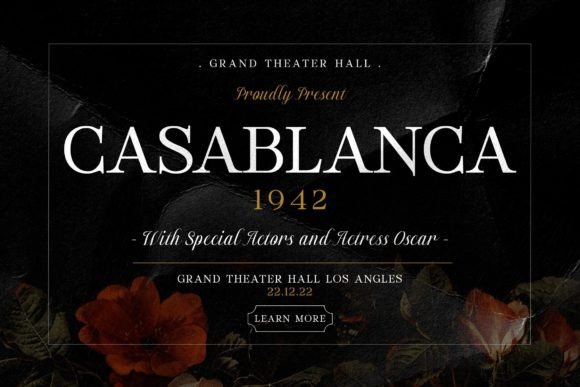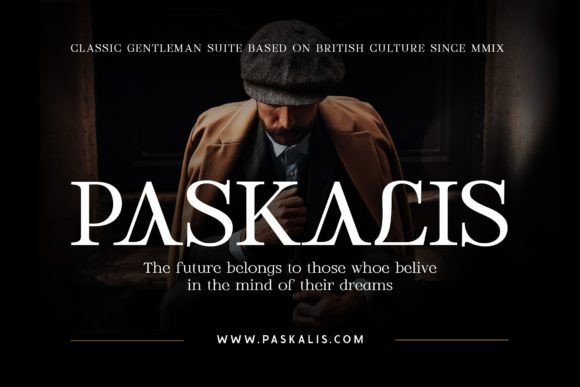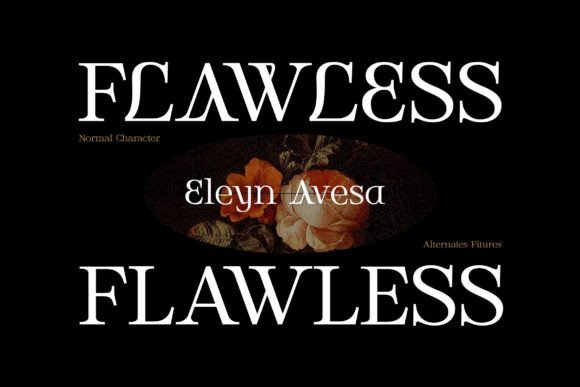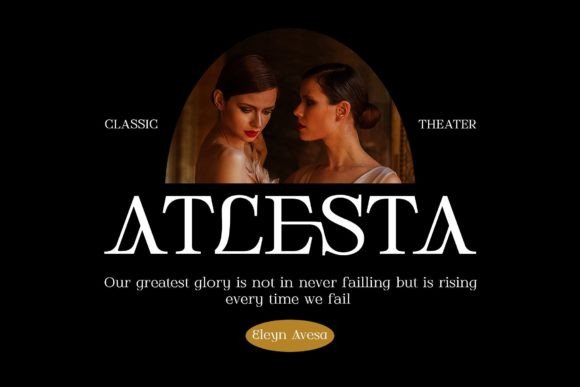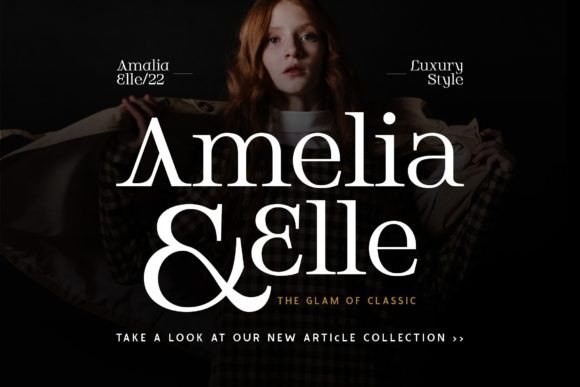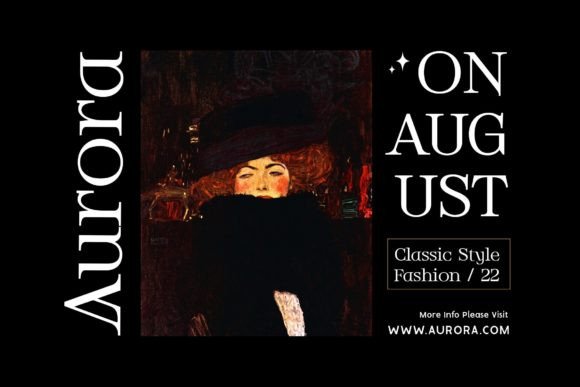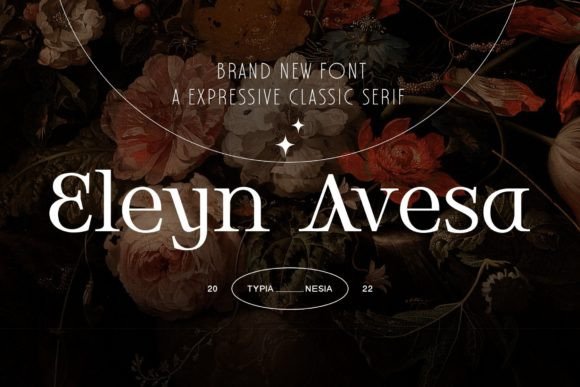
Introducing Eleyn Avesa Font: Elevate Your Design Projects with Elegance and Sophistication
Are you searching for a font that exudes luxury, class, and sophistication? Look no further than Eleyn Avesa Font. This stunning serif font is perfect for a wide range of design projects, from luxury logos and branding to editorial design, magazines, and more. In this article, we’ll explore the features and benefits of Eleyn Avesa Font and why it’s the ideal choice for your next design project.
Unparalleled Versatility
Eleyn Avesa Serif is a versatile font that can be used for various design projects, including:
- Luxury logo and branding
- Classy editorial design
- Woman magazine
- Cosmetic brand
- Fashion promotional materials
- Art gallery branding
- Museum and historical or architectural projects
- Boutique branding
- Stationery design
- Blog design
- Modern advertising design
- Card invitation
- Art quote
- Home decor
- Fantasy movie/game
- Novel/book/cover title
- Special events
Whether you’re working on a high-end brand or a creative project, Eleyn Avesa Font is sure to impress. Its elegant and refined design makes it perfect for projects that require a touch of sophistication.
One of the standout features of Eleyn Avesa Font is that it’s PUA (Private Use Area) encoded. This means that you can access all of the amazing glyphs and ligatures with ease. PUA encoding allows you to use the font’s extended character set, including:
- Swashes
- Ligatures
- Alternates
- Ornaments
Why Choose Eleyn Avesa Font?
So, why should you choose Eleyn Avesa Font for your next design project? Here are just a few reasons:
- Elegant and refined design: Eleyn Avesa Font features a sophisticated and elegant design that’s perfect for high-end brands and creative projects.
- Highly versatile: This font can be used for a wide range of design projects, from luxury logos to editorial design and more.
- PUA encoded: With PUA encoding, you can easily access the font’s extended character set, including swashes, ligatures, alternates, and ornaments.